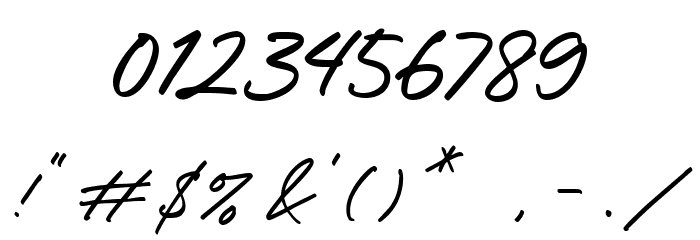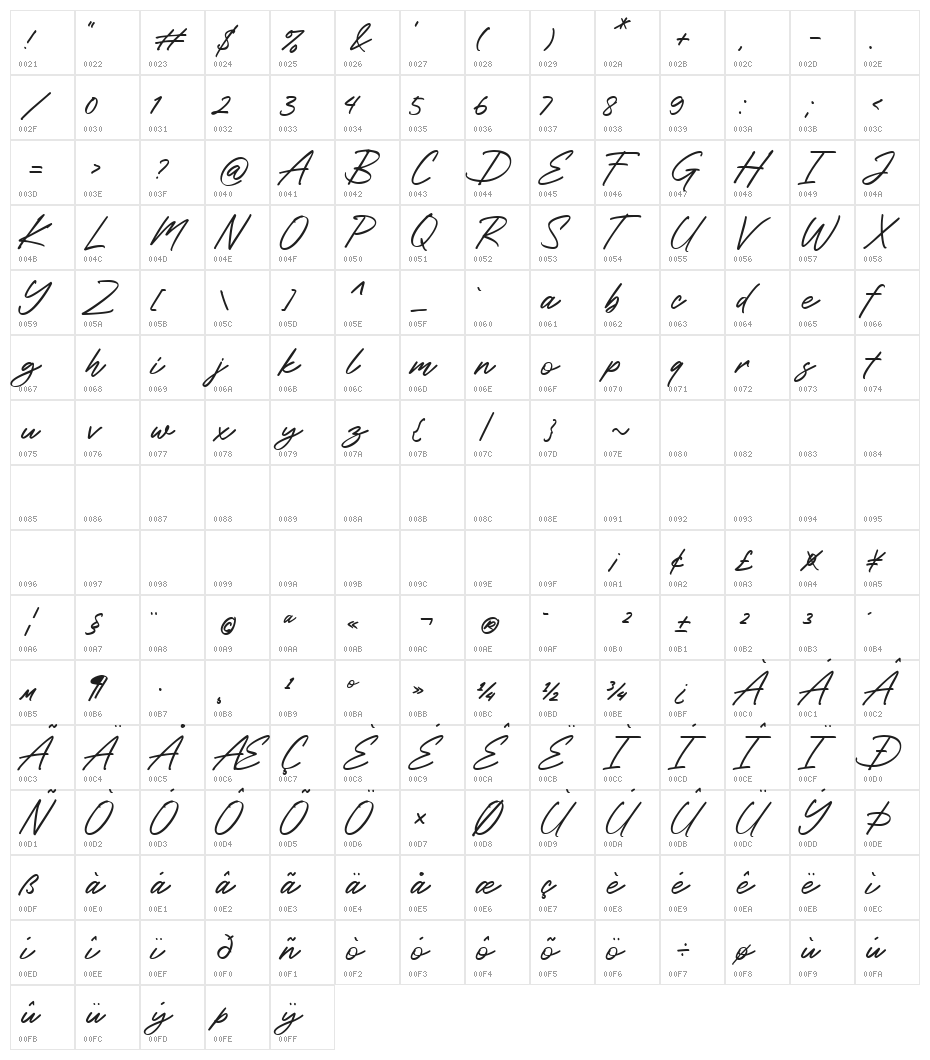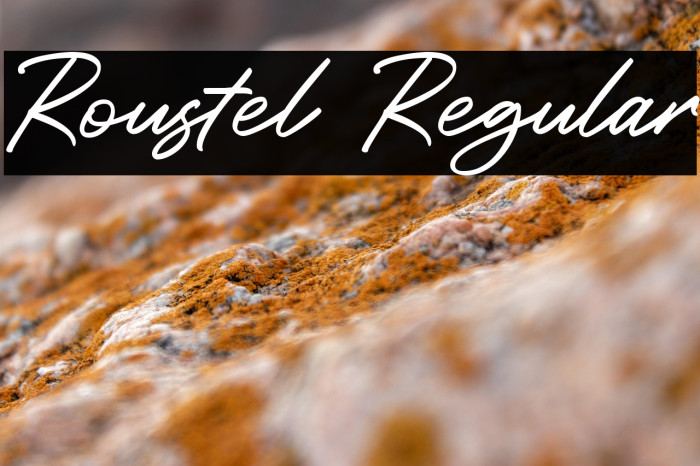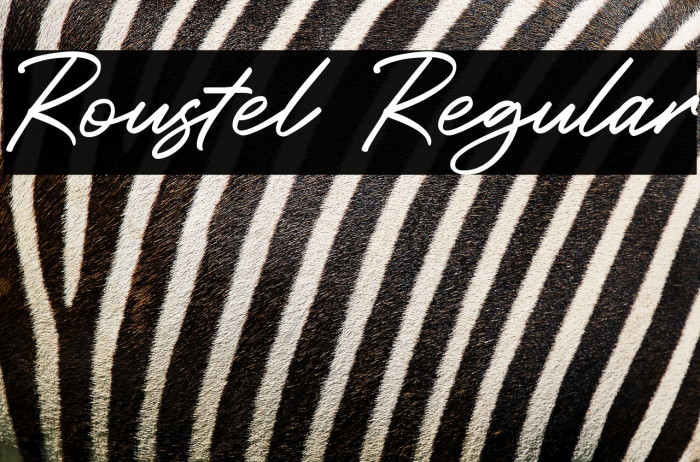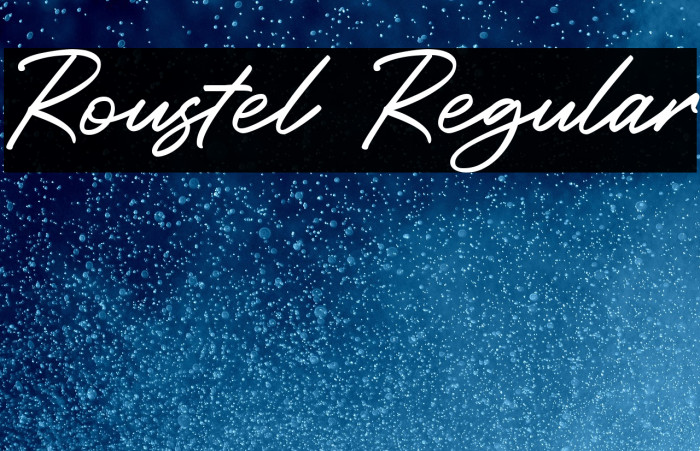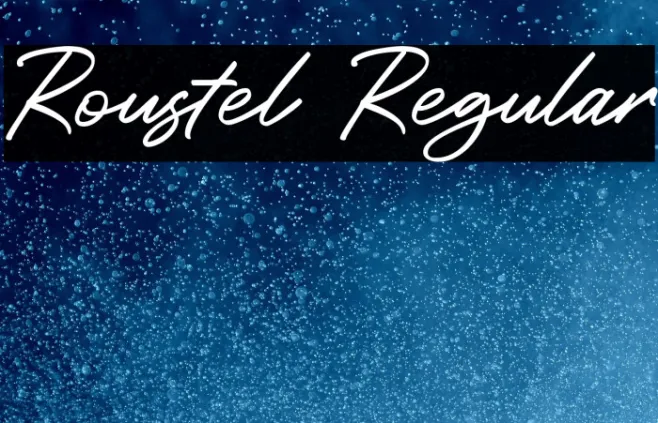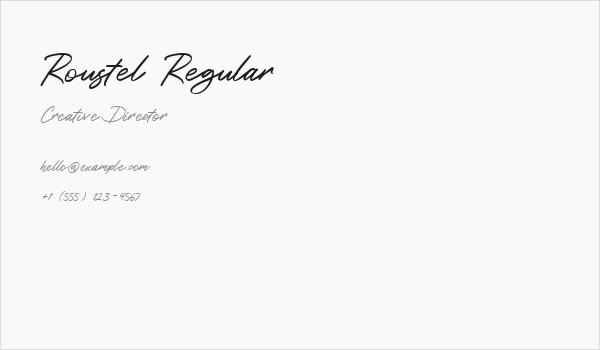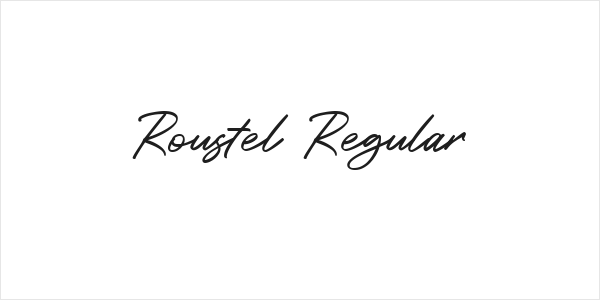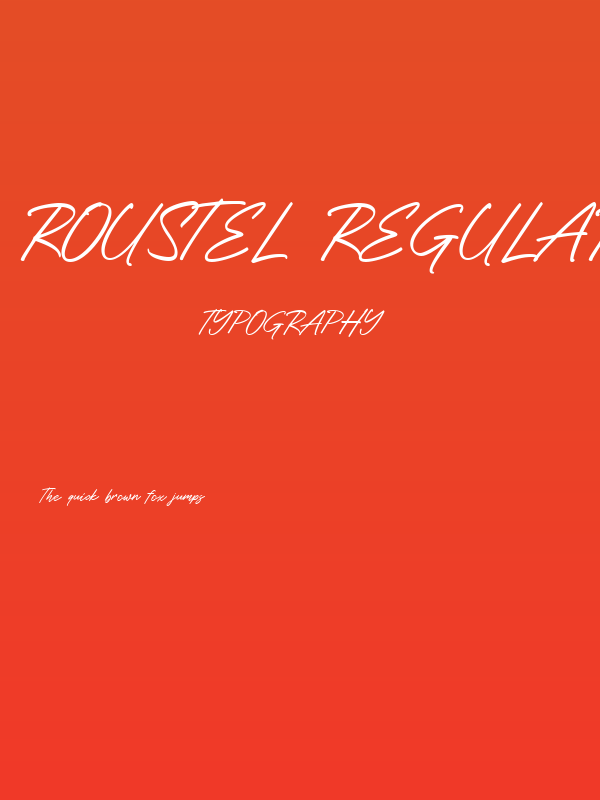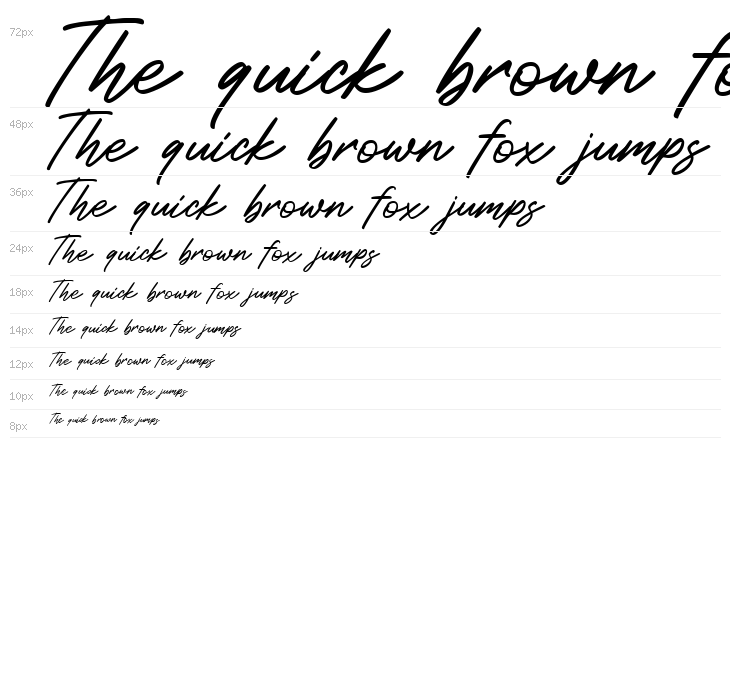
Roustel Regular Font
Roustel Regular Description
This font exudes a dynamic and fluid style, characterized by its cursive script that mimics natural handwriting. The letters are elegantly connected, creating a seamless flow that enhances readability while maintaining a stylish appearance. The uppercase letters are slightly more formal, with a consistent slant and smooth curves, while the lowercase letters are more playful and expressive. The numerals and special characters maintain the same fluidity, ensuring a cohesive look across all text elements. This font is ideal for projects that require a personal touch, such as invitations, greeting cards, or branding materials that aim to convey elegance and sophistication.
| Overall Style | Elegant, Personal |
| Proposed Projects | Ideal for invitations, greeting cards, branding materials, and any project requiring a personal, elegant touch. |